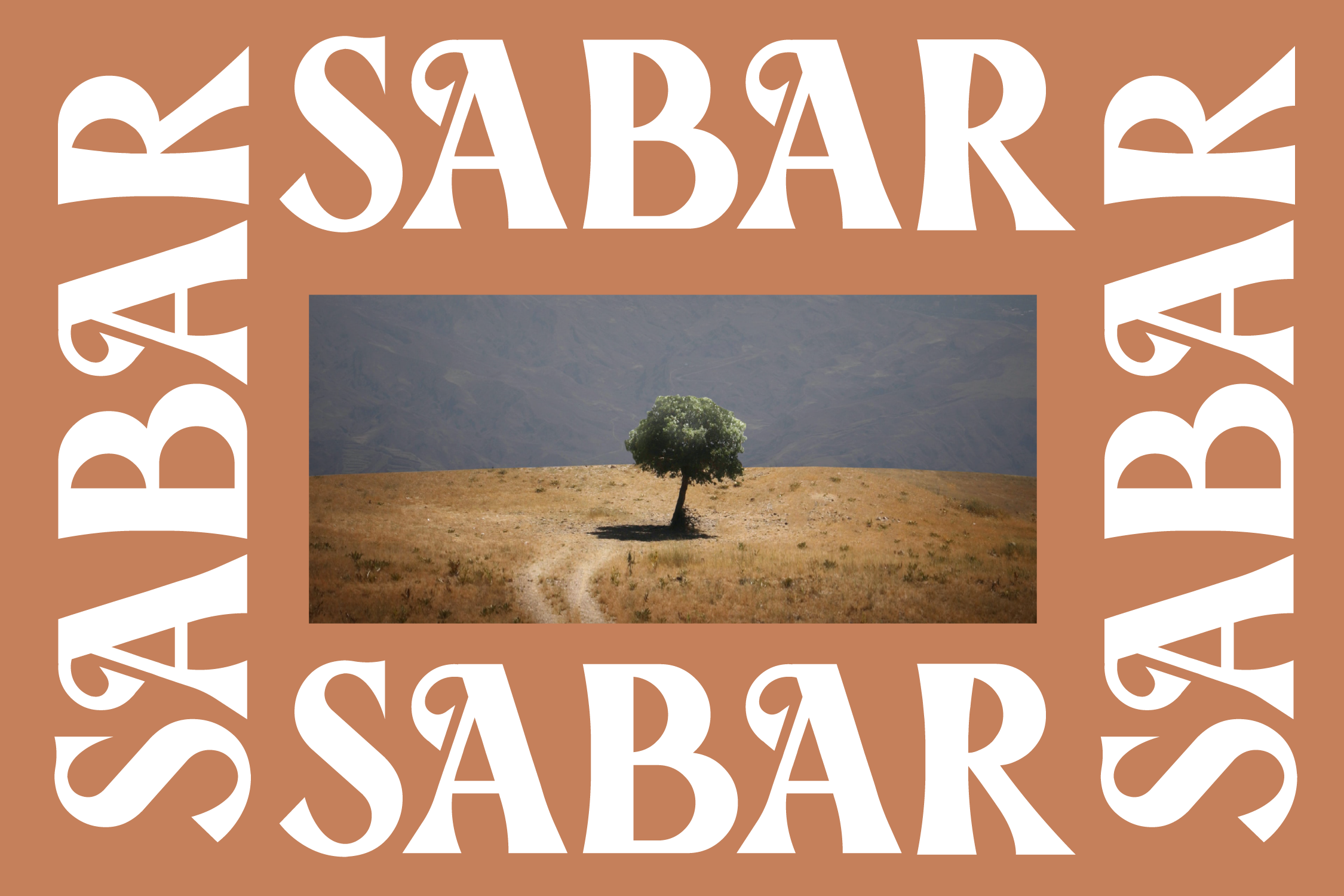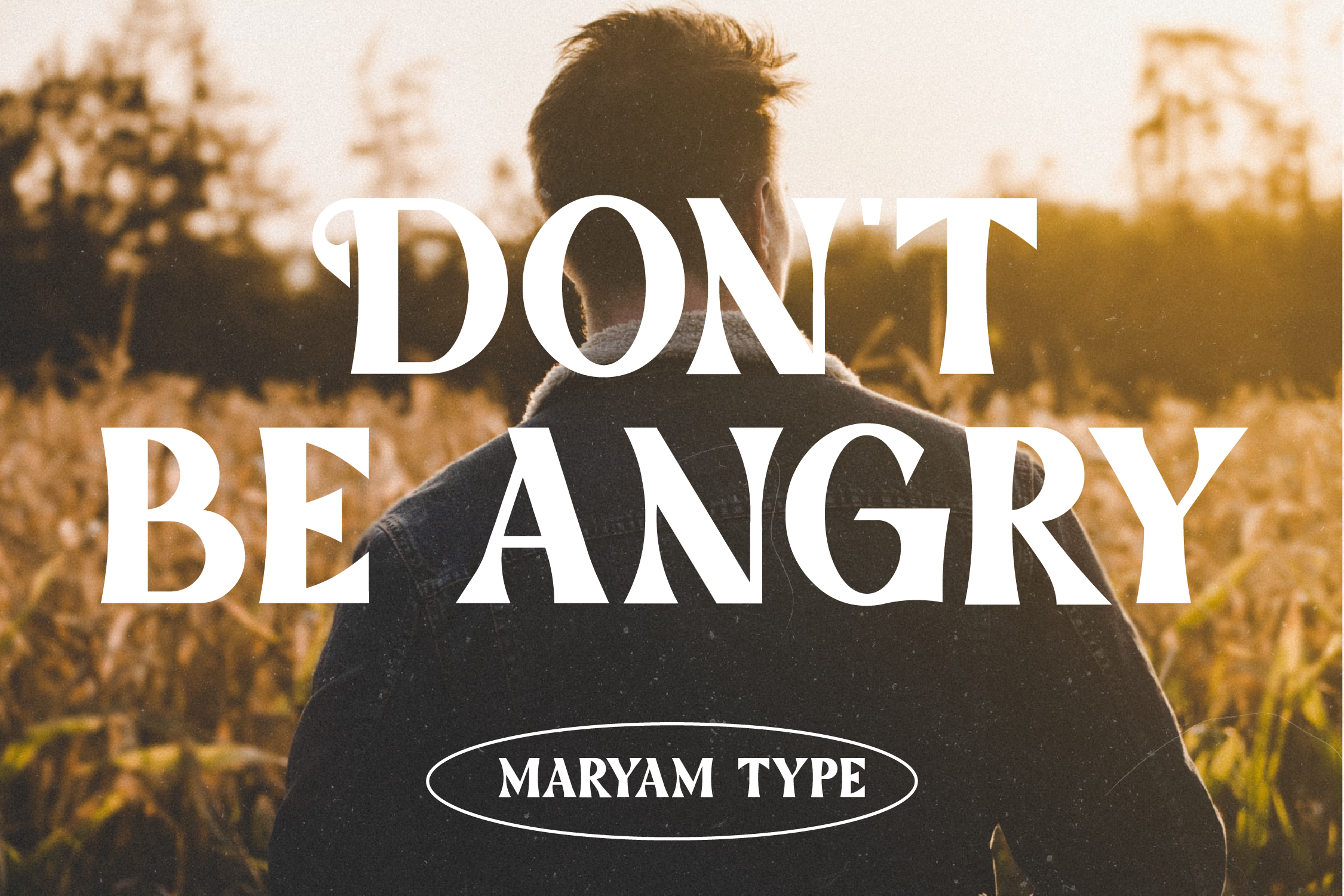
Sabar Dzikir Font
Sabar Dzikir Serif Font is a display serif typeface that has a unique look. This typeface is perfect for logos, book or movie title designs, fashion brands, magazines, clothing, fonts, quotes and more.